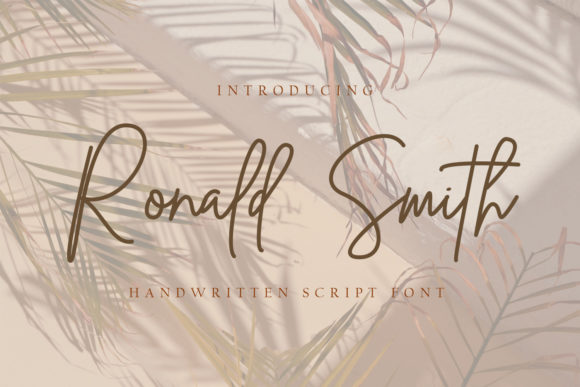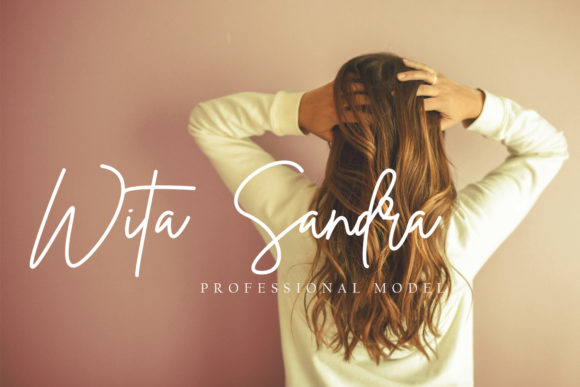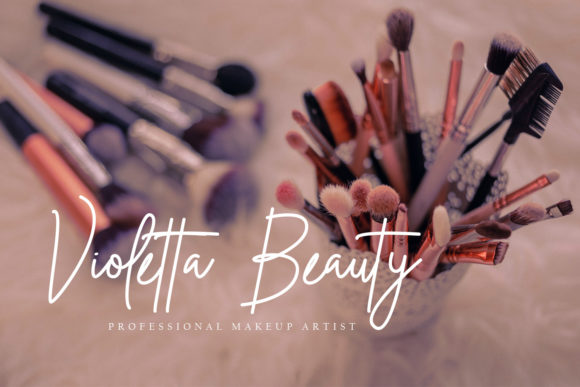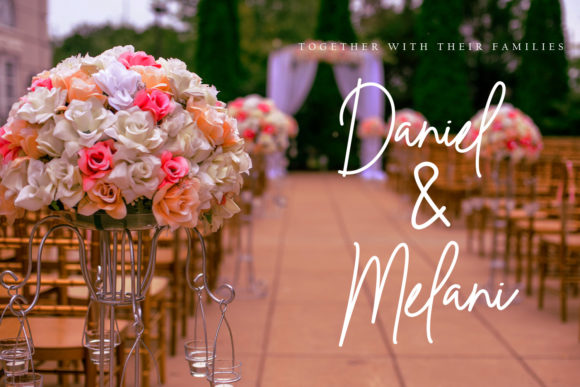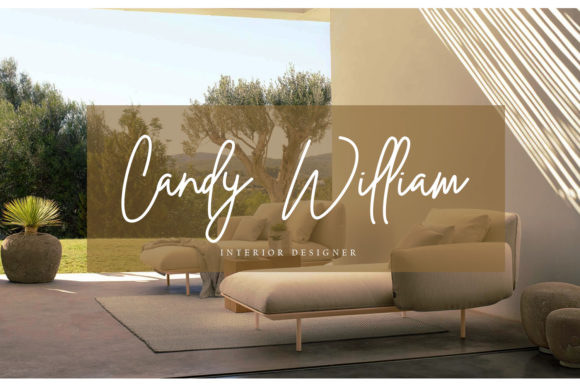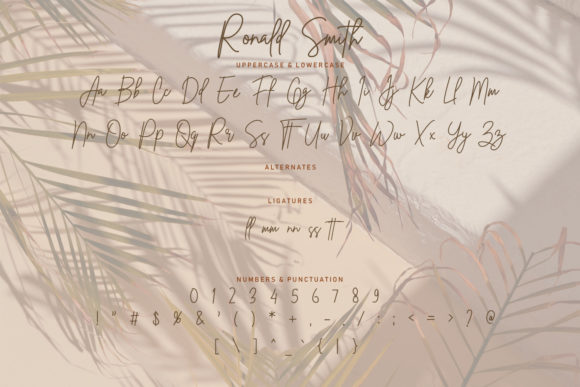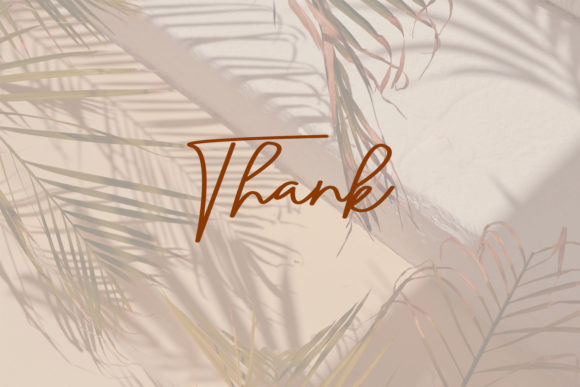
Ronald Smith Font
About Ronald Smith Font
Ronald Smith feels equally charming and elegant. This stunning script font is a stylish homage to classic calligraphy. Get inspired by its authentic feel and use it to create gorgeous wedding invitations, beautiful stationary art, eye-catching social media posts, and cute greeting cards.